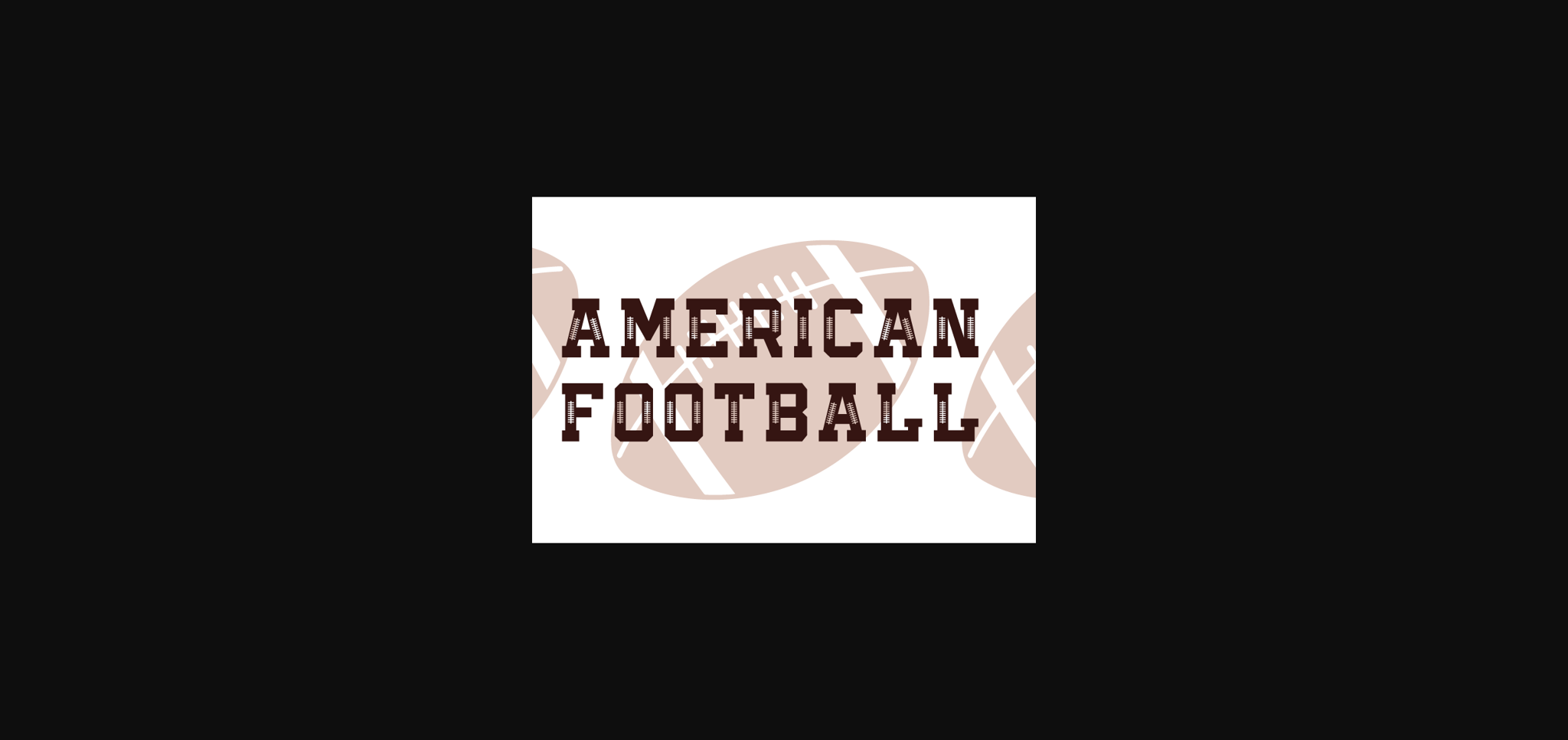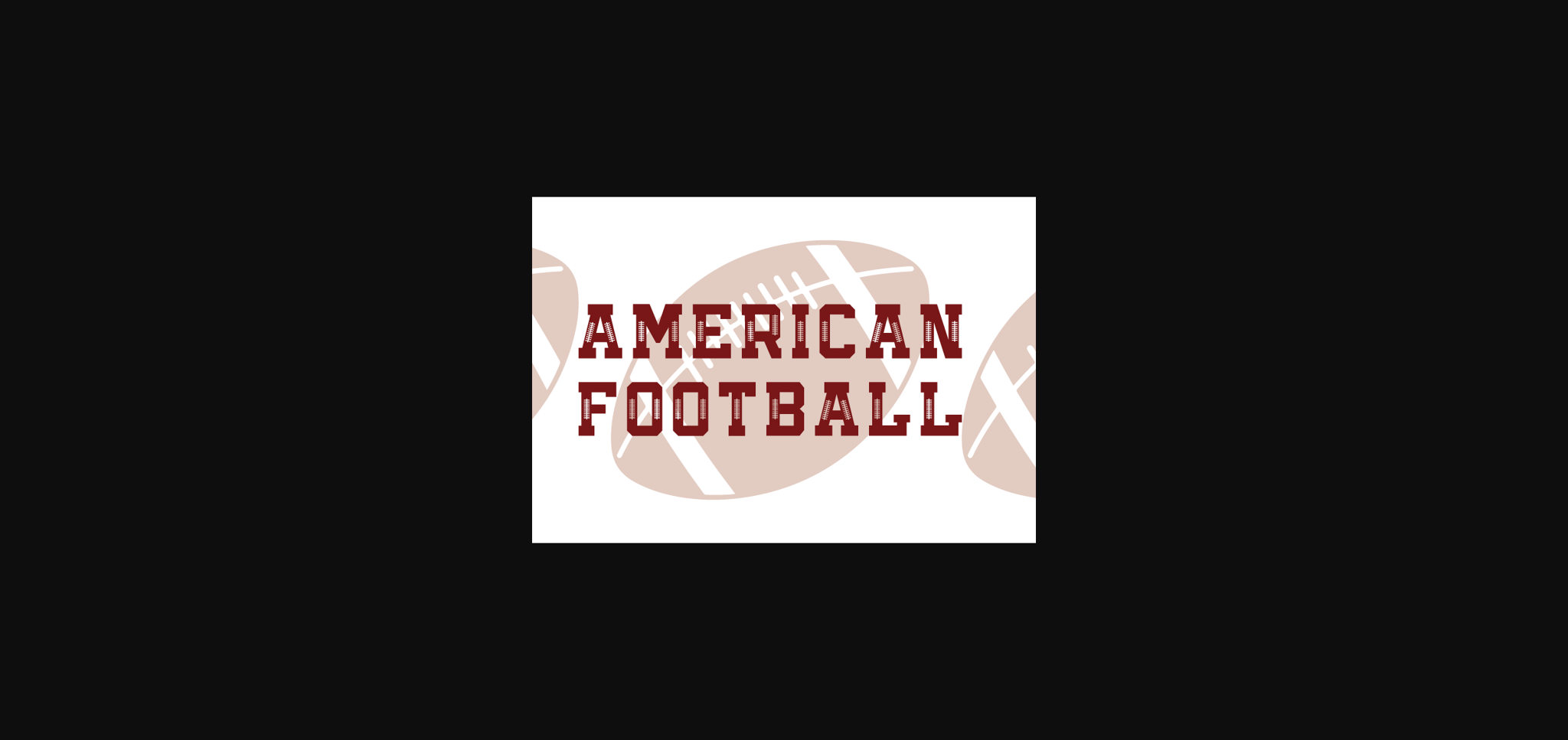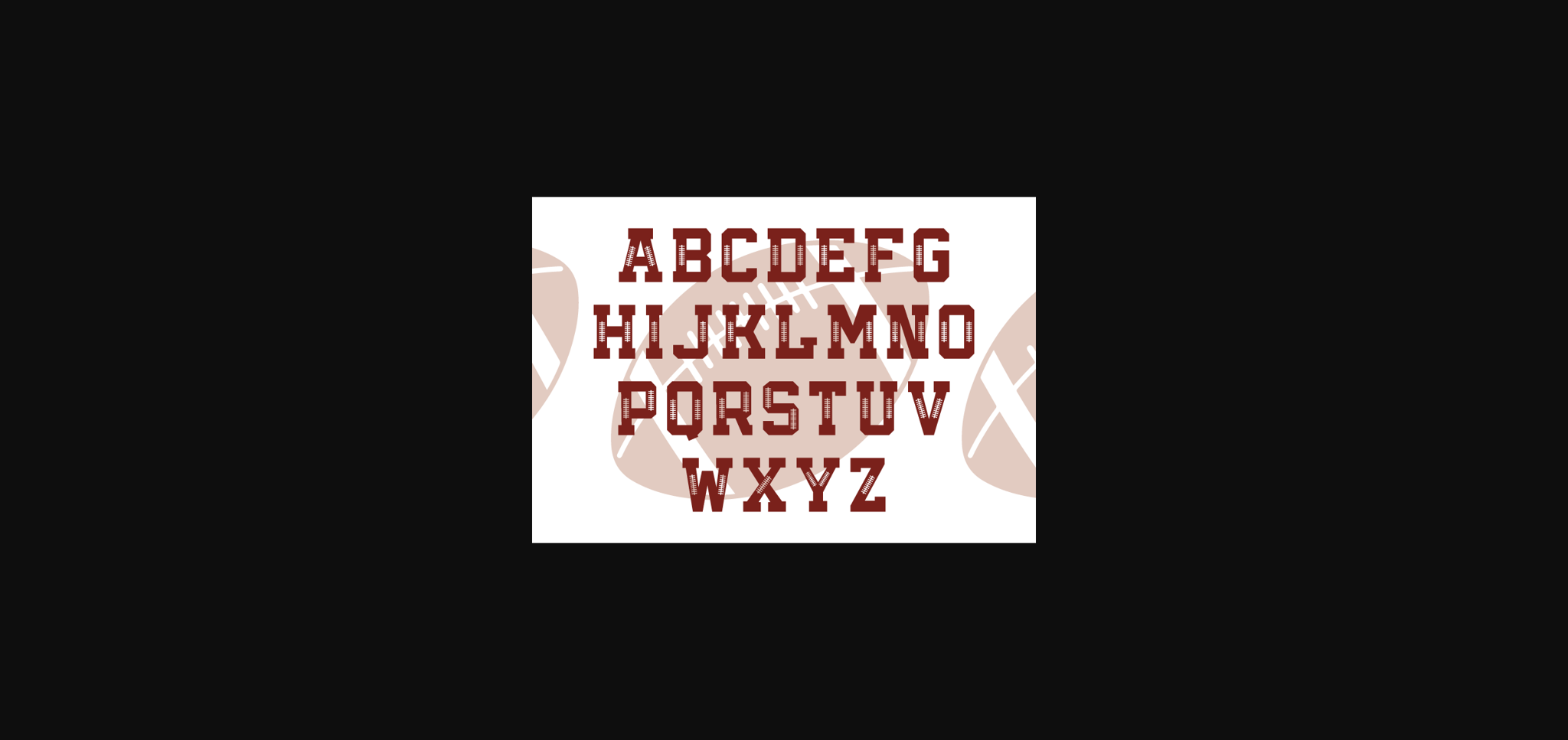
American Football Font
About American Football Font
American Football is a creative and Modern sans-serif font. Add it confidently to your creative projects and notice how it makes them stand out. This American Football font is a daring dance of contrasts and creativity. Each letter bears the marks of bold decisions. The clean, angular incisions create a captivating interplay of light and shadow, lending dynamic energy to every character.